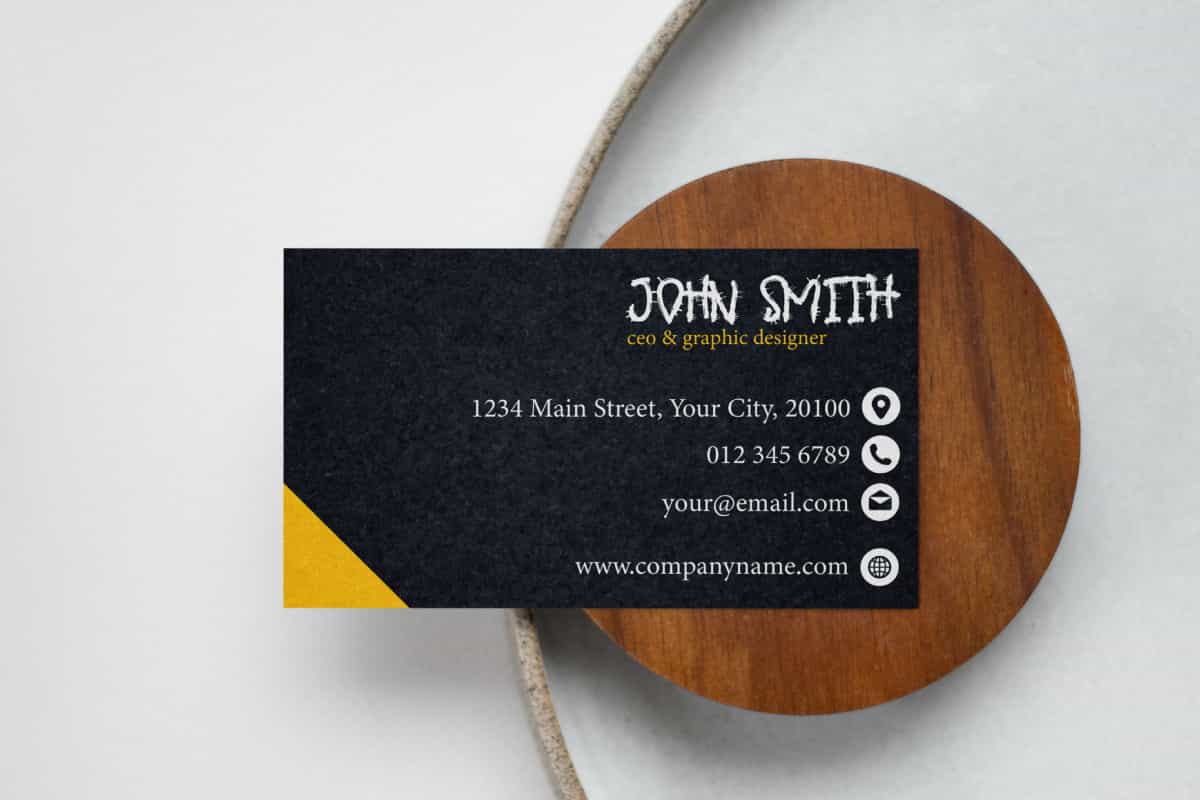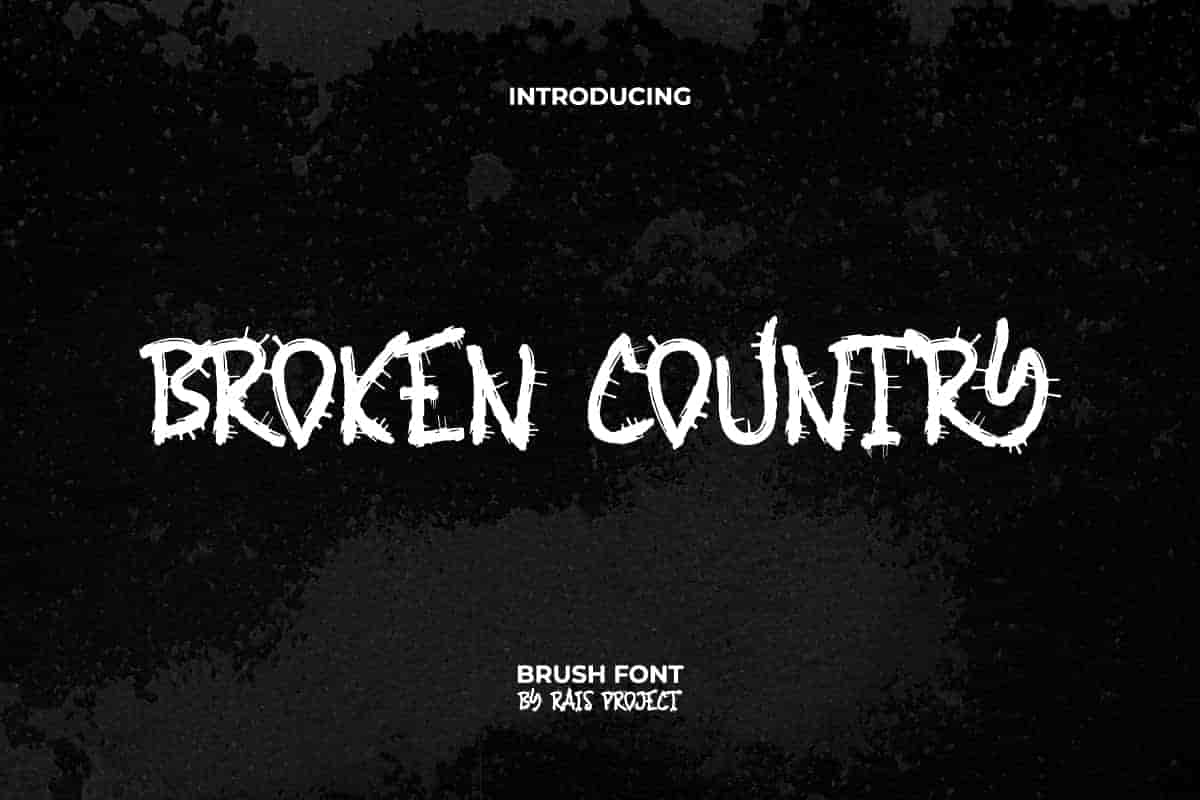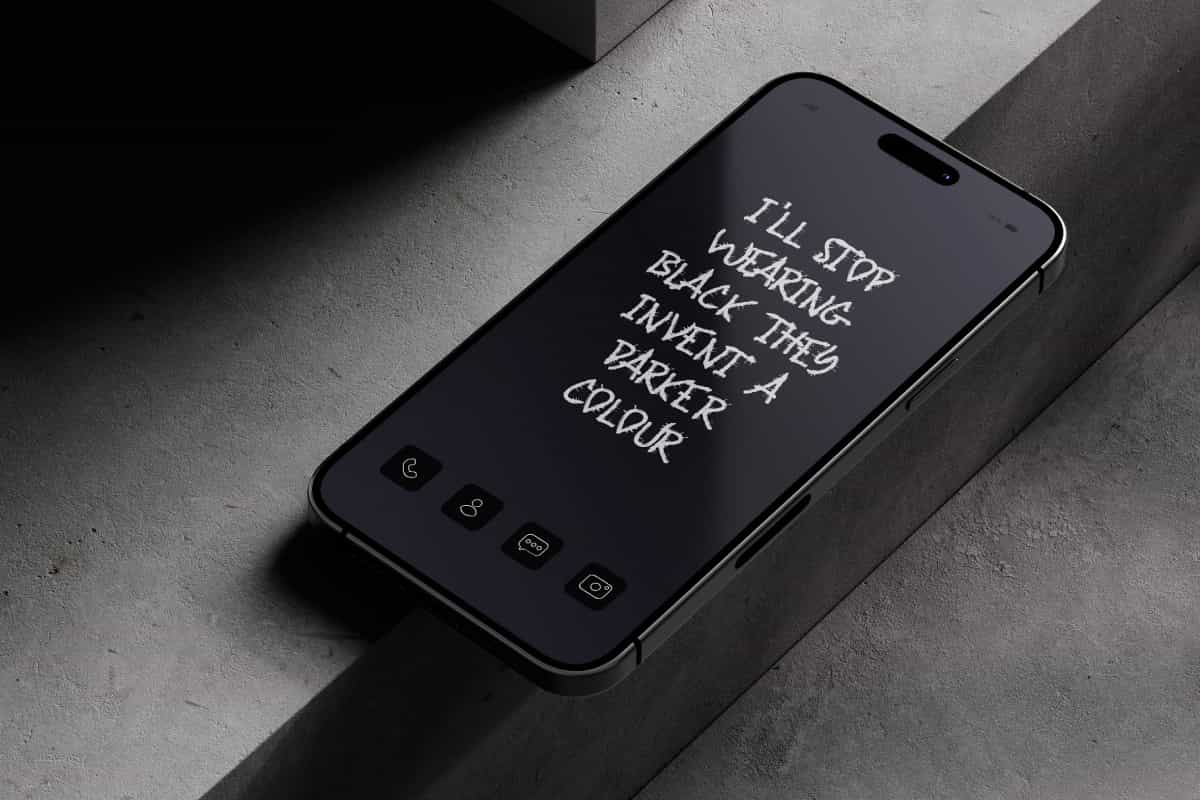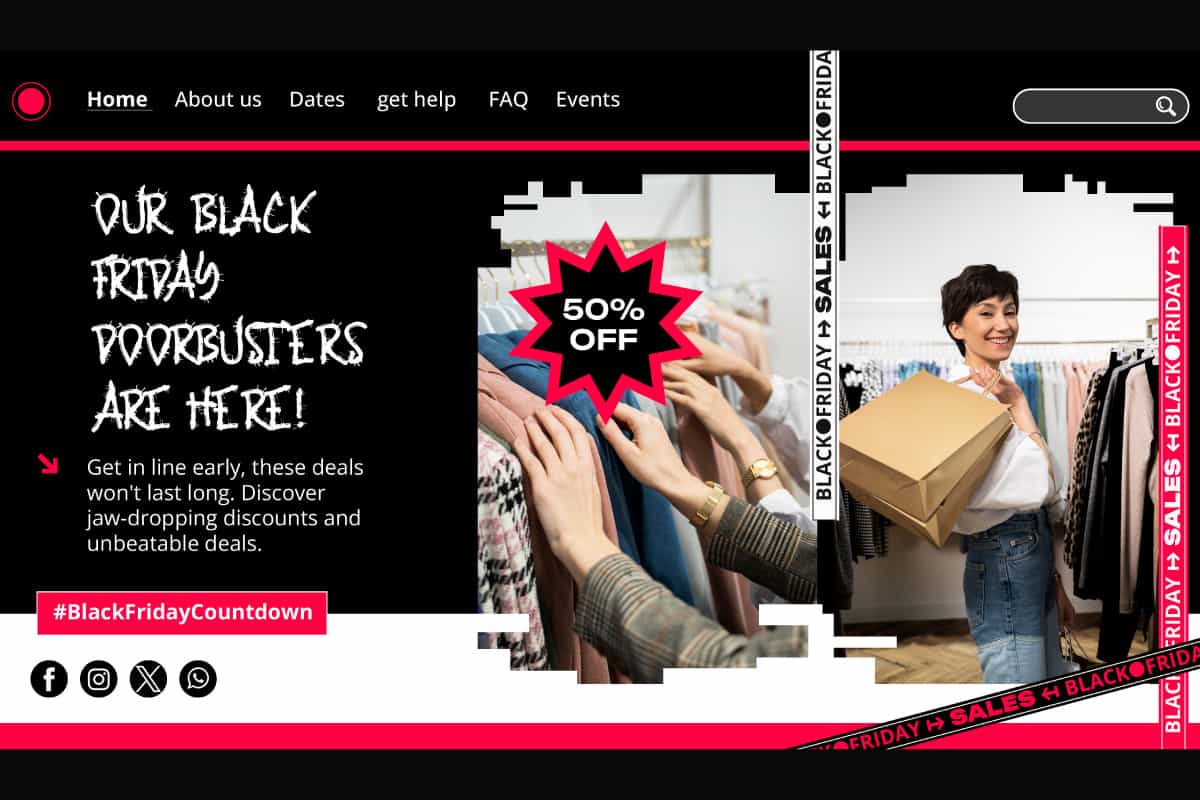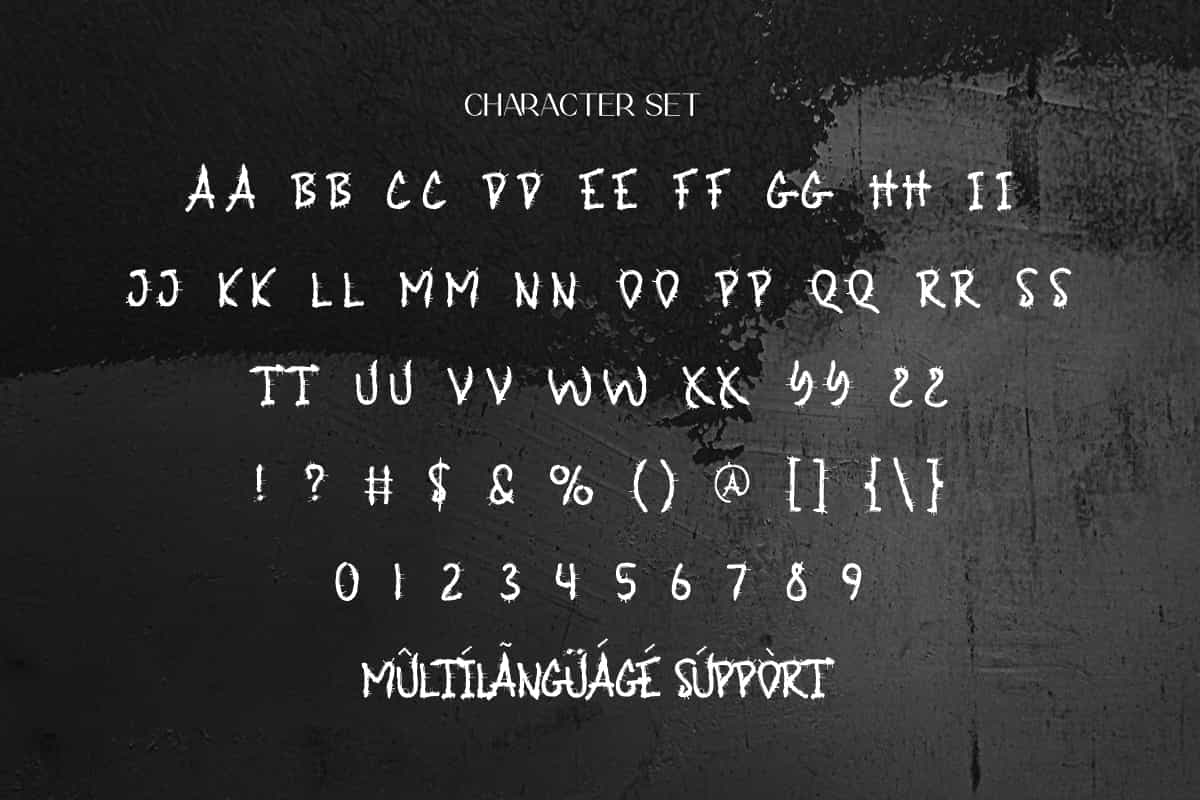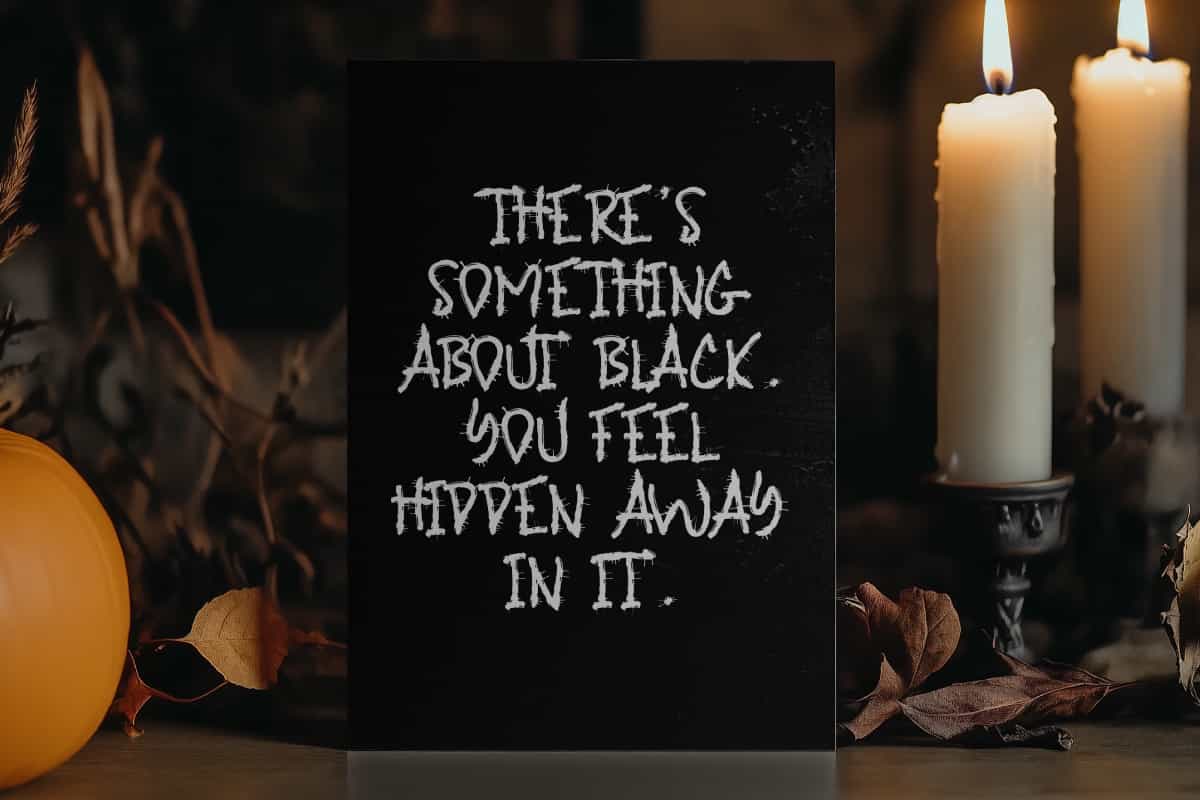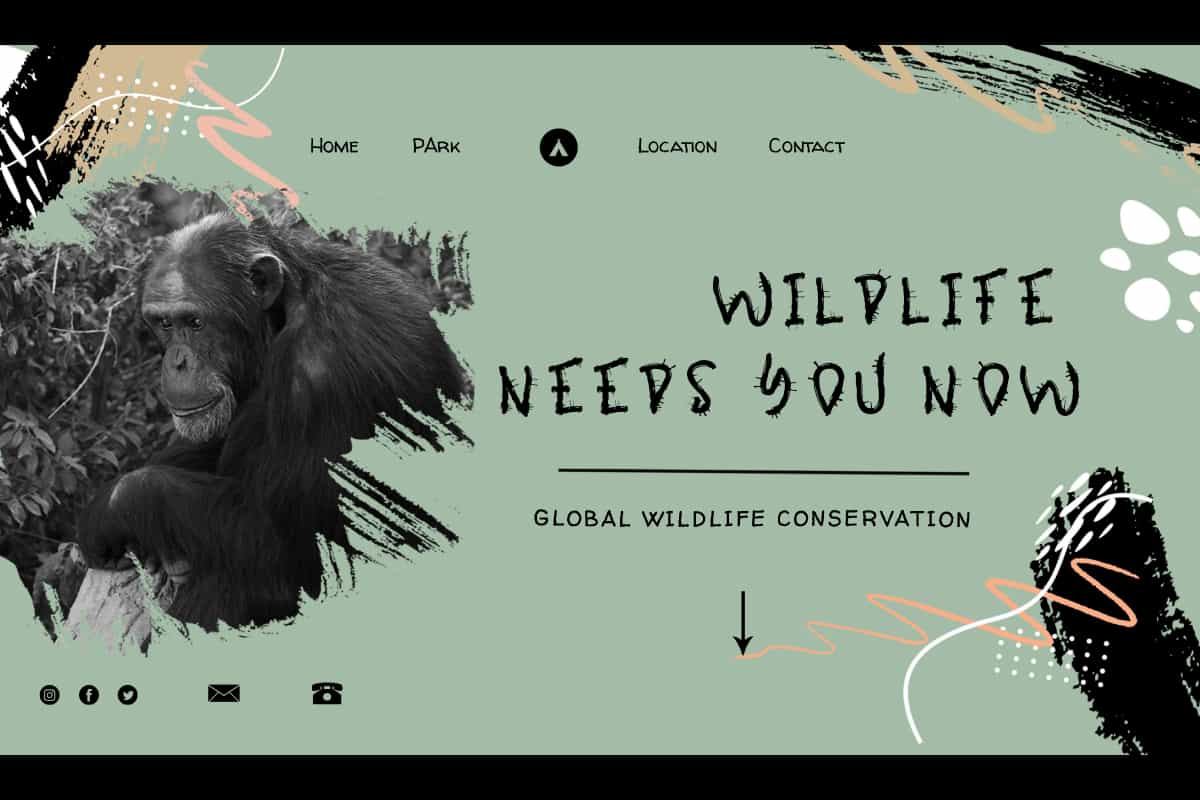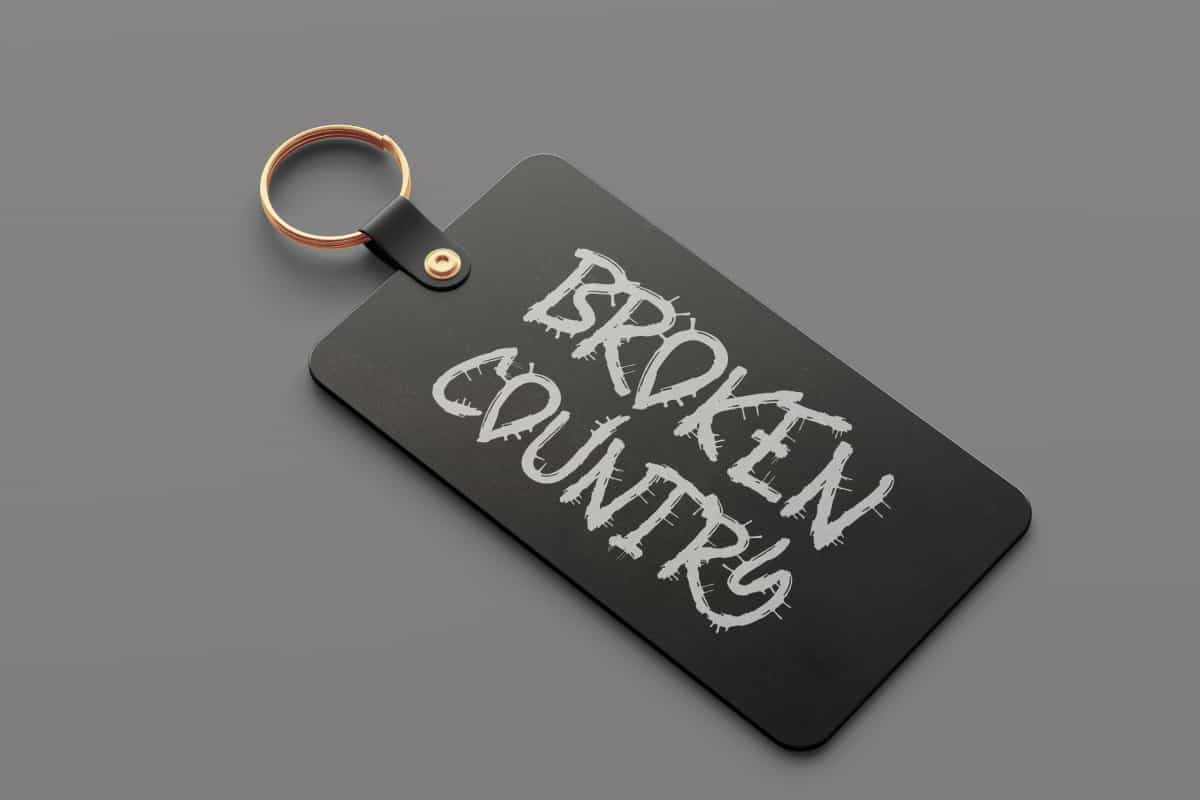
Broken Country Font
Broken Country Font is a horror and mysterious decorative font with brush style. Get an iconic look in every design by using this font!
Broken Country Font is a mysterious, rough, decorated, black metal, hardcore and creepy brush font by RaisProject. This font has a unique and horror look at the same time with the addition of small spikes around the letters. Try this font now for various designs, such as poster, label, custom design, stationery, signage, invitation, advertisement, website, quotes, and more!
Broken Country Font comes with a full set of upper and lowercase letters, numerals, a large range of punctuation to make it blend. The font carefully crafted to create a unique look and still easy to read. This font would be perfect for industry like movie, game, fashion, event or festival, cafe, graphic designer, printing, publishing, etc.